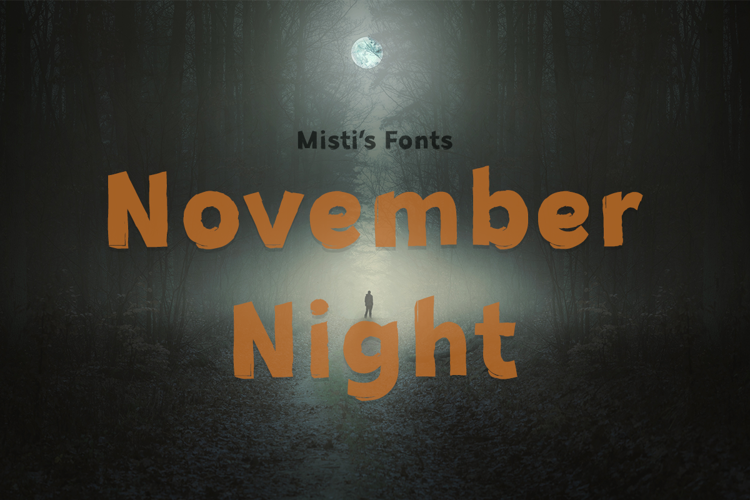
November Night Font
About November Night Font
November Night is a stylish, grunge-style display typeface. It is a perfect fit for any project that needs a cool, edgy feel, including rock music posters and heavy metal albums, Halloween-themed designs, horror-themed projects and so much more!